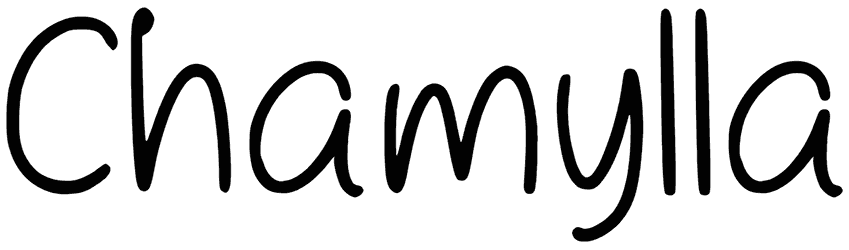
Chamylla Font
In your projects, Chamylla can create a more intimate and humane atmosphere to transfer your brand’s spirit and message and influence your customers’ thoughts and feelings. Using this handwritten font will allow you to appear as an expert in less formal designs and communicate with the audience most effectively.
This script font’s easy readability and childlike appearance can help you get closer to your audience by removing all the privacy barriers. Using this attractive and minimal font makes stationery and toys more noticeable.